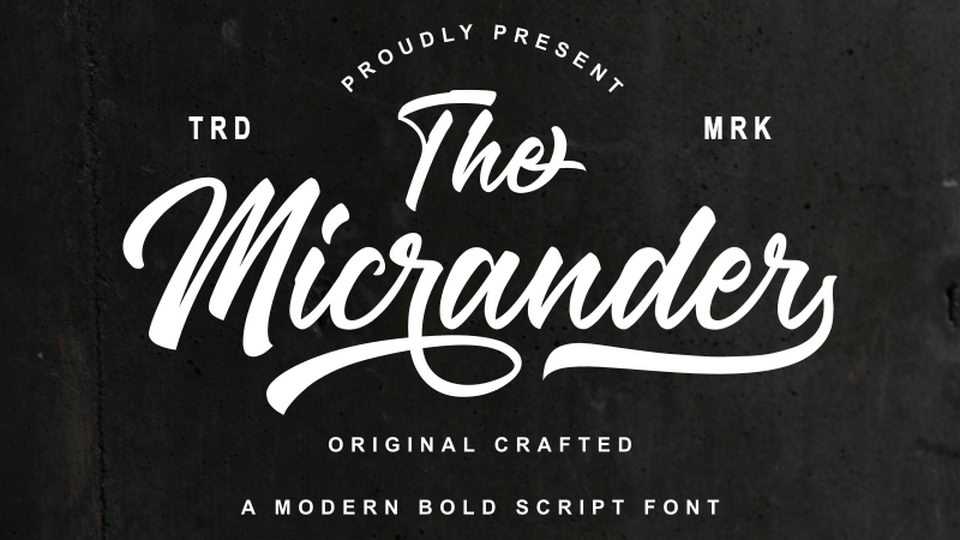
The Micrander Script Font › Fontesk – Download Grátis
Download The Micrander font, a modern bold handwritten script for creating logos, watermarks, label, quotes. The Micrander is great for turning any design project into a true standout.
Designer: R Studio